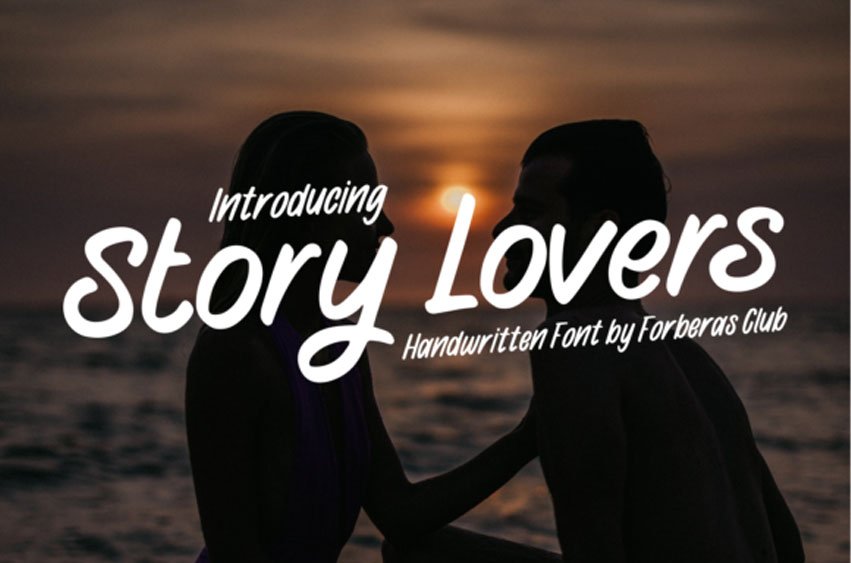
Story Lovers Font is a flowing and elegant handwritten font. Its distinct and well balanced letters make this font a masterpiece.
Fall in love with its incredibly versatile style and use it to create spectacular designs!